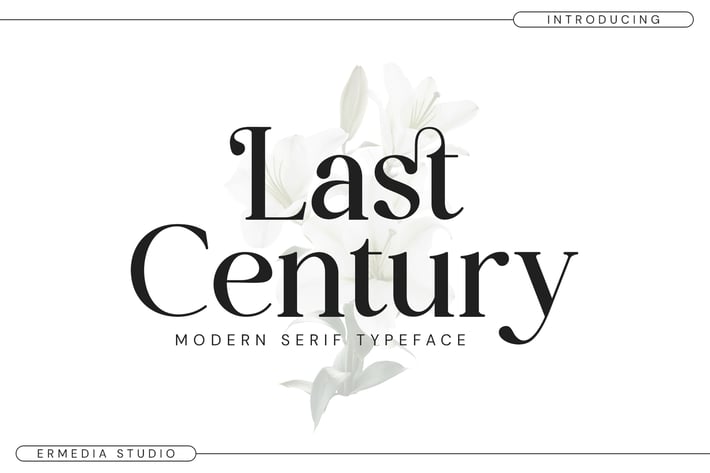
Last Century - Modern Serif Font
Introducing the Last Century Serif Font: is a modern serif font that is balanced, smooth, elegant and stylish. He has a beautiful character. Very suitable to be combined with invitation card designs, company logos, film titles, film names, business cards, book titles, brand names and various other designs. Last Century Serif is a smooth serif font that exudes sophistication and elegance. Its stylish alternation and binding make this font the perfect partner for any project.